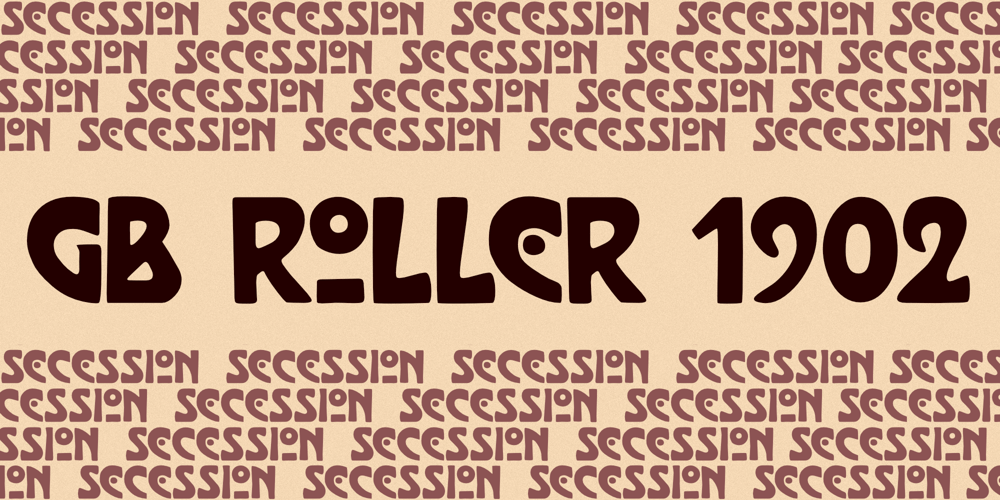
GB Roller 1902 Font Family was designed by Alfred Roller, Gregor Bromme and published by Typo GB. GB Roller 1902 contains 1 styles and family package options. GB Roller 1902 is an all-caps font inspired by the work of Alfred Roller.Its origins lie in hand-drawn posters made by the Austrian artist in 1901-1902 for the Vienna Secession. After more than 120 years, this “Künstlerische Schrift” (artistic font) is finally available in digital form for the first time.A note about ligatures: To improve user experience, you can avoid ligatures by typing a lowercase letter followed by an uppercase one (sT, cH).